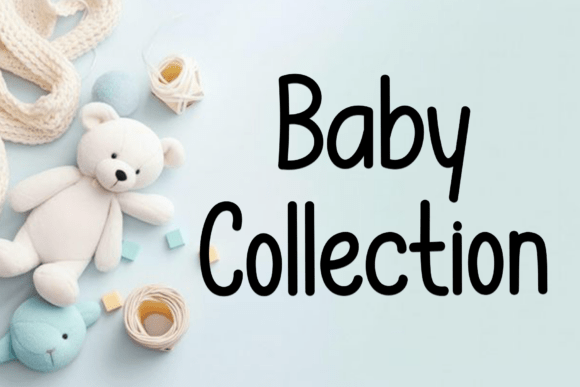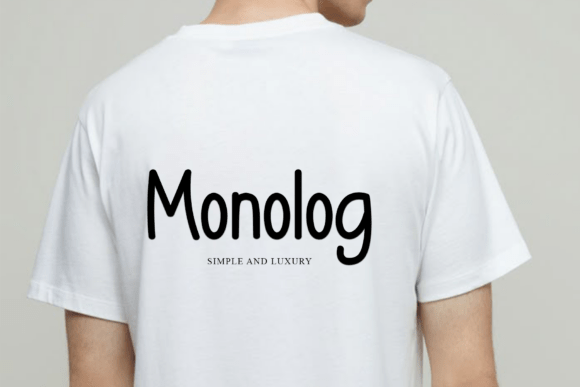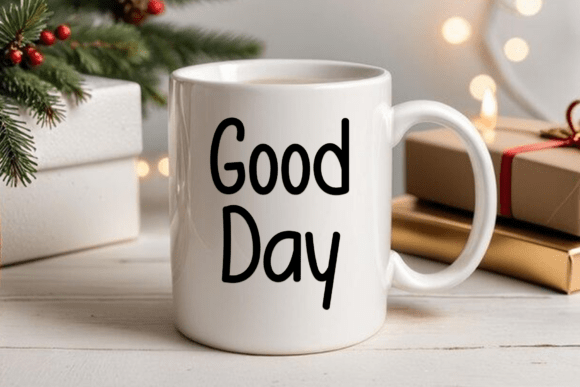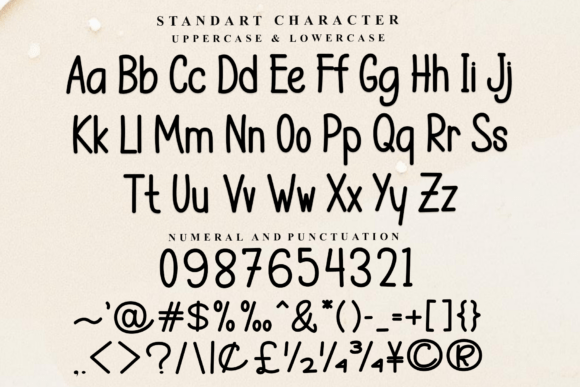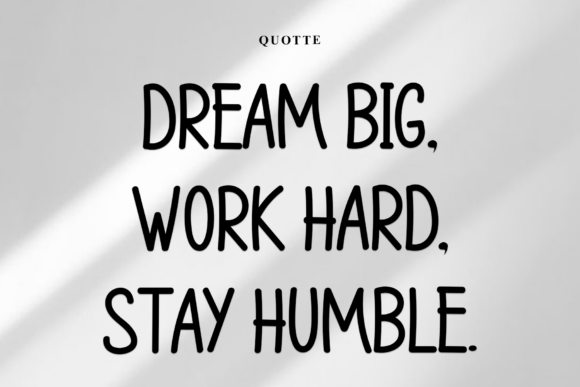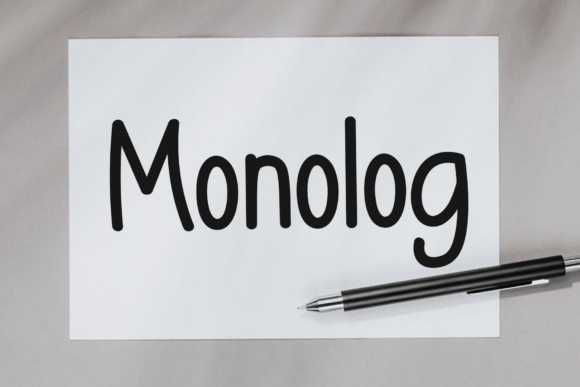
The Anniversary Font: A Warm and Playful Addition to Your Design Arsenal
I’ll never forget the time I was working on a project for a client’s anniversary party invitation. I had a clear vision of what I wanted to create – a warm, inviting design that exuded joy and celebration. But, as I began to work on the project, I realized that finding the perfect font was going to be a challenge. That’s when I stumbled upon the Anniversary font, and it completely transformed my design. In this article, I’ll share my experience with this charming font, its features, and how to make the most of it in your designs.
A Personal Review of Anniversary Font
The Anniversary font has quickly become one of my go-to fonts for personal projects, invitations, and social media graphics. Here’s what I love about it:
• ✨ Warm and inviting feel: The round, playful strokes of this font create a relaxed and approachable feel that’s perfect for designs that need a personal touch.
• ✅ Easy to read: The font’s clear and legible design makes it easy to read, even at smaller sizes.
• 🎉 Fun and unique: The charming, hand-drawn aesthetic of this font adds a fun and unique touch to any design.
While I love the Anniversary font, there are a few quirks to be aware of:
• 🤔 Limited use in formal designs: The playful nature of this font makes it less suitable for formal designs or projects that require a more professional tone.
• ⚠️ Glyph compatibility: Some glyphs may not work properly in certain applications, so it’s essential to test the font before using it in a project.
The Story Behind Anniversary Font
The Anniversary font was designed with the intention of creating a warm and inviting font that would add a personal touch to any design. The designer aimed to create a font that would evoke feelings of joy and celebration, making it perfect for anniversary parties, weddings, and other special occasions.
What is the Anniversary font? The Anniversary font is a casual and creative font that exudes warmth and friendliness.
Is the Anniversary font suitable for formal designs? No, the Anniversary font is better suited for personal projects, invitations, and social media graphics that require a warm and playful touch.